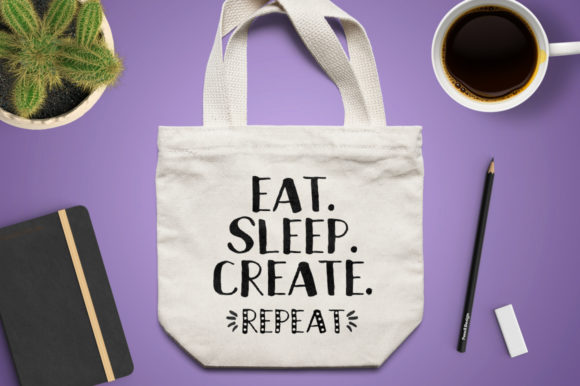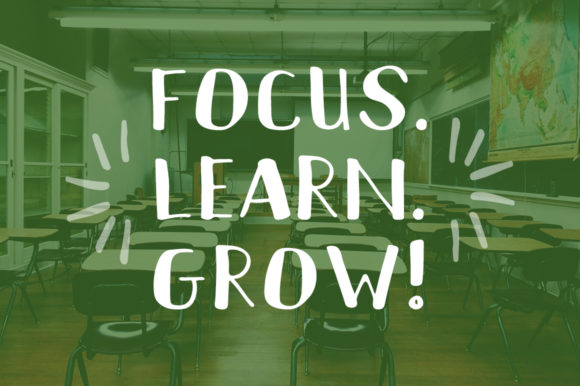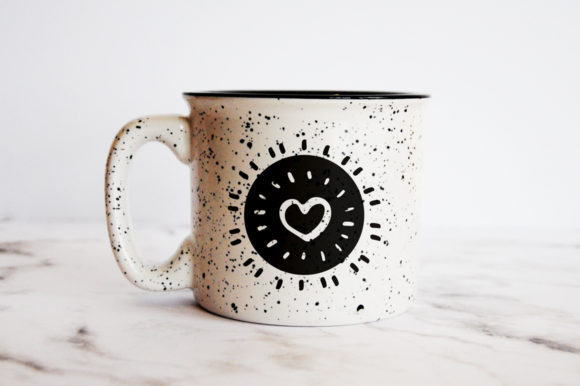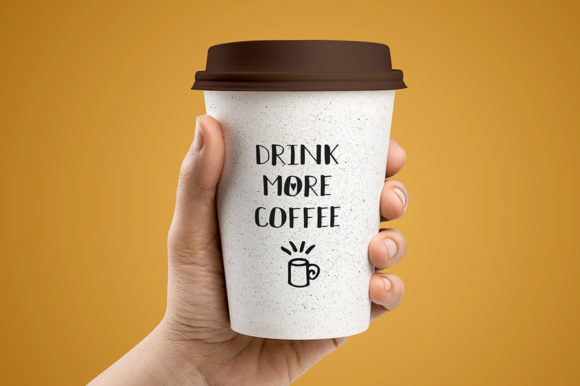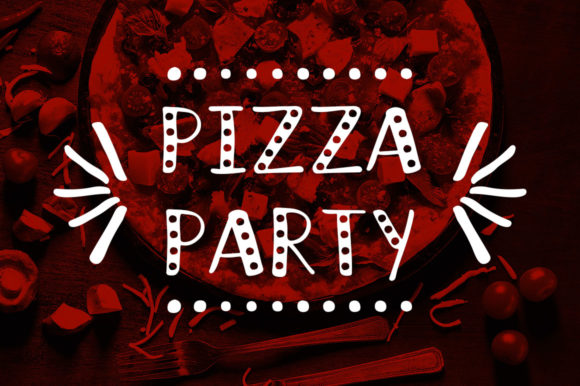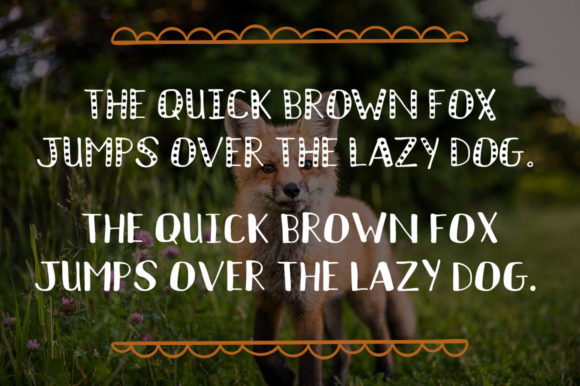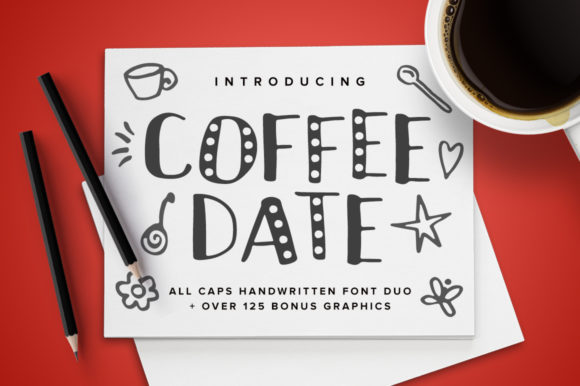
Coffee Date Font: The Perfect Addition to Your Design Arsenal
Are you a designer or crafter looking for a unique and playful font to add to your collection? Look no further than the Coffee Date Font! This cutesy all-caps handwritten font is perfect for use in coffee-themed projects and beyond. In this article, we’ll dive into the features and benefits of the Coffee Date Font, and explore how you can use it to take your designs to the next level.
What is Coffee Date Font?
Coffee Date Font is a charming, all-caps handwritten font that’s sure to delight. Its playful and whimsical style makes it perfect for use in a variety of design projects, from coffee shop branding to social media graphics, and even craft projects like scrapbooking and card making. The font comes in two styles, which can be mixed and matched to create a unique look that’s all your own.
Key Features of Coffee Date Font
- All-caps handwritten font: Coffee Date Font is a beautiful, hand-written font that’s perfect for adding a personal touch to your designs.
- Two font styles: The font comes in two styles, which can be mixed and matched to create a unique look.
- 100+ doodle graphic elements: The font includes over 100 doodle graphic elements, including illustrations of coffee cups, donuts, and more.
- Coffee theme: The font is perfect for use in coffee-themed projects, but can also be used in a variety of other design projects.
Benefits of Using Coffee Date Font
So why should you choose Coffee Date Font for your next design project? Here are just a few benefits of using this amazing font:
- Adds a personal touch: The hand-written style of Coffee Date Font adds a personal touch to your designs, making them stand out from the crowd.
- Versatile: The font can be used in a variety of design projects, from coffee shop branding to social media graphics, and even craft projects.
- Easy to use: The font comes in two styles, making it easy to mix and match to create a unique look.
- Includes graphic elements: The font includes over 100 doodle graphic elements, making it easy to add visual interest to your designs.
How to Use Coffee Date Font
Using Coffee Date Font is easy! Here are a few tips for getting started:
- Pair with other fonts: Mix and match Coffee Date Font with other fonts to create a unique look.
- Use with graphic elements: Use the included doodle graphic elements to add visual interest to your designs.
- Experiment with colors: Try out different color combinations to find the perfect look for your design.
Design Ideas Using Coffee Date Font
- Coffee shop branding: Use Coffee Date Font to create a unique and playful brand identity for a coffee shop.
- Social media graphics: Use the font to create eye-catching social media graphics, such as Instagram posts and Facebook covers.
- Scrapbooking and card making: Use Coffee Date Font to add a personal touch to scrapbooking and card making projects.
- Digital planners and journals: Use the font to create digital planners and journals that are both functional and visually appealing.
In conclusion, Coffee Date Font is a versatile and playful font that’s perfect for use in a variety of design projects. With its all-caps handwritten style, two font styles, and over 100 doodle graphic elements, it’s easy to create unique and visually appealing designs. Whether you’re a designer or crafter, Coffee Date Font is a great addition to your design arsenal.